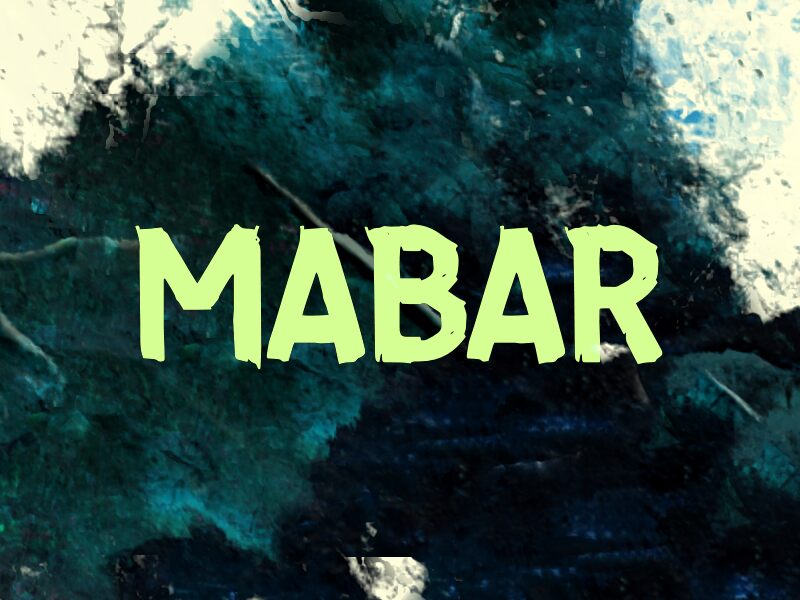
M Mabar font by wep is a free font that offers a distorted and eroded hand-drawn appearance with a rugged texture. Its informal style and organic forms give it a slight edge, adding a creative expression with a contemporary vibe to your design projects. This typeface brings a unique touch to any visual composition and is perfectly suited for creating artworks and branding.
Use this font for T-shirt prints, posters, books, editorial designs, and product packaging. Extend its application to website designs, advertisements, digital apps, games, logotypes, event promotions, and in-store banners.
Mabar is a versatile and stylish free font designed to enhance your creative projects. Its unique characteristics make it ideal for a variety of applications, including branding, posters, and social media graphics. With its modern aesthetic and approachable design, Mabar stands out while remaining highly readable.